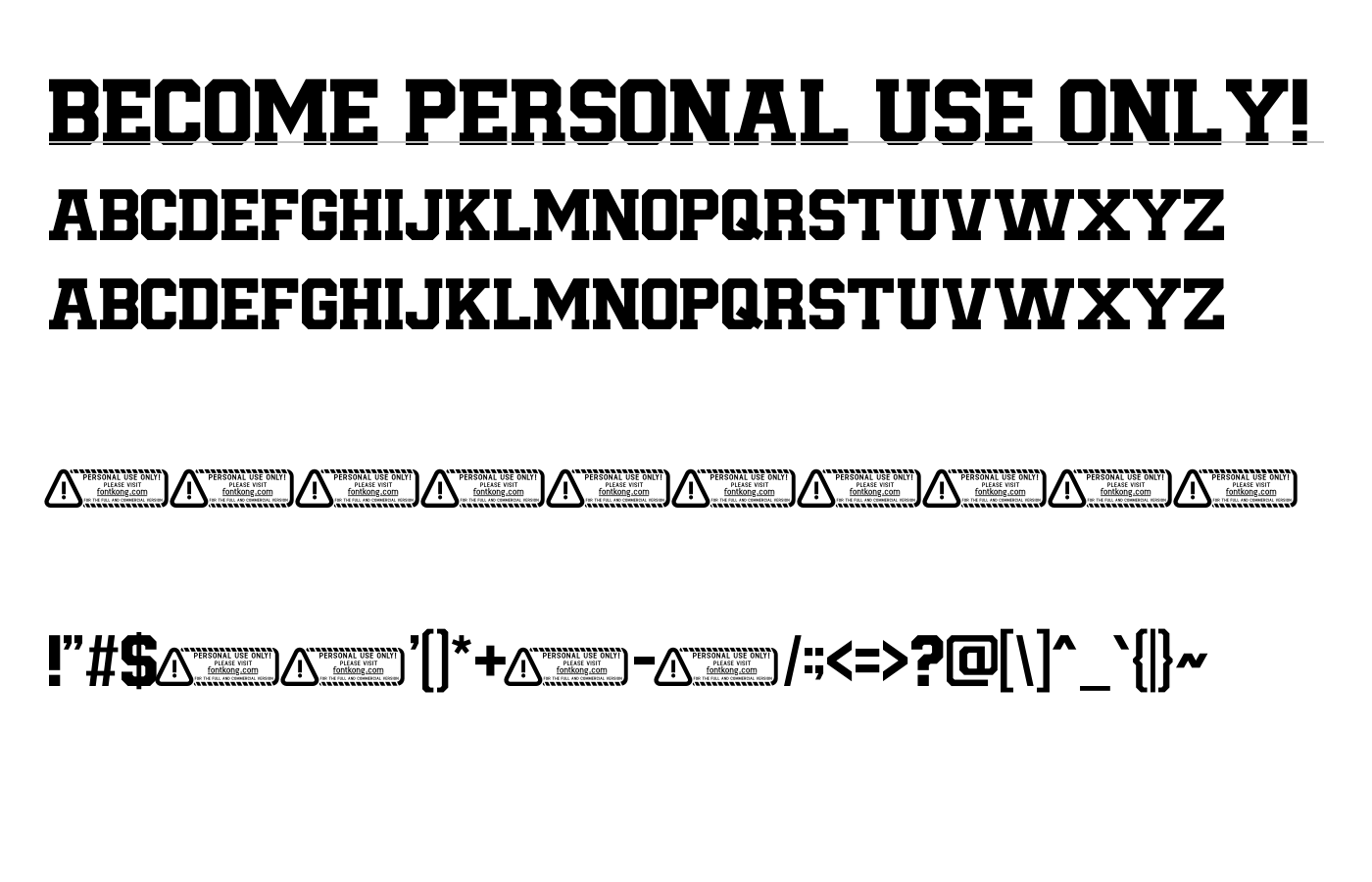
Become PERSONAL USE ONLY! is a bold, condensed slab serif font with a strong, blocky presence, featuring thick strokes and unbracketed serifs that give it a sturdy and vintage feel. Its uppercase-only style with geometric shapes and clean lines makes it ideal for headlines, logos, and posters where a powerful, rugged look is desired. This font works especially well in contexts like sports branding, western-themed projects, or any design needing a bold, assertive statement.
Become PERSONAL USE ONLY! Font
About Become PERSONAL USE ONLY! Font